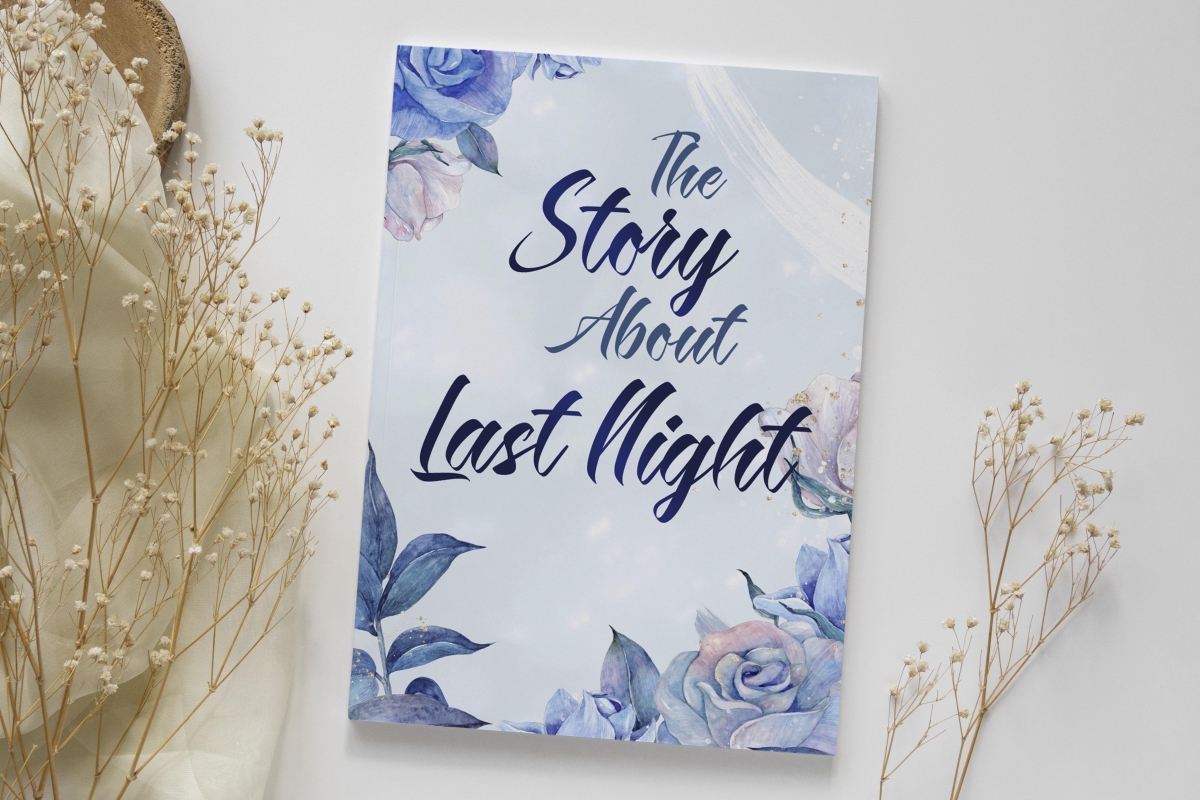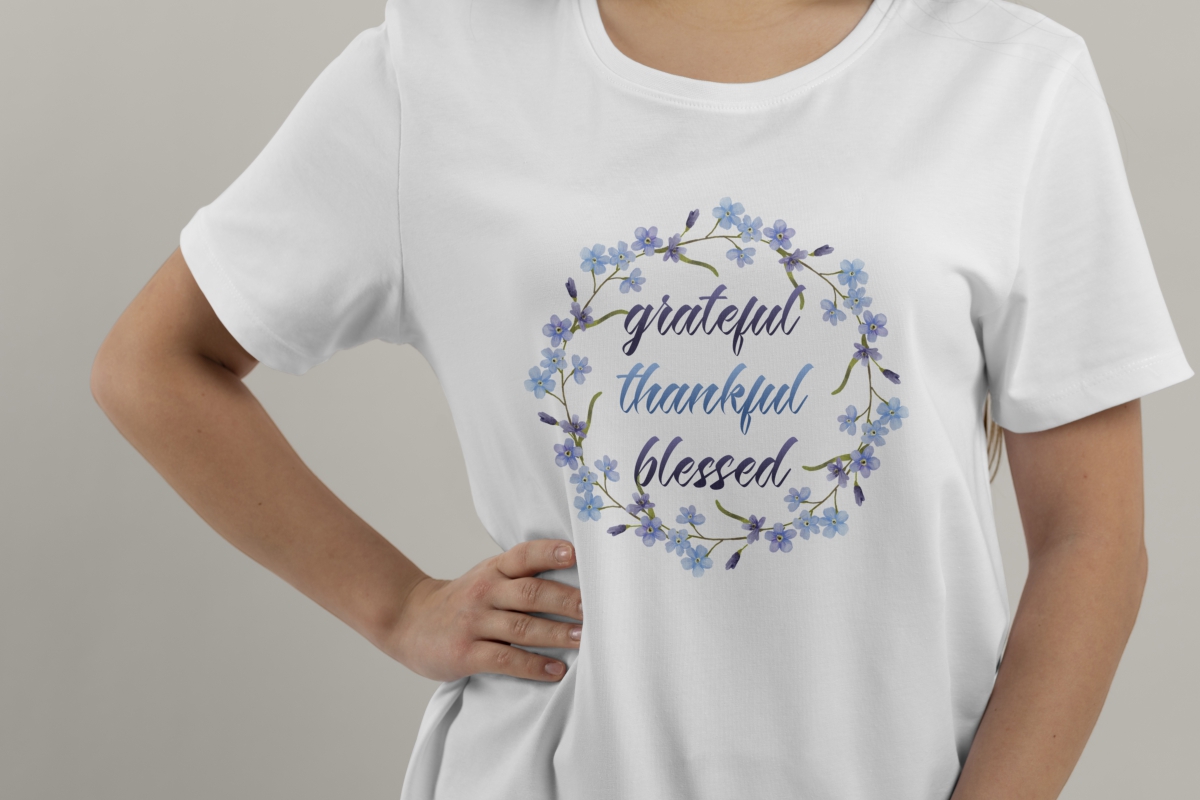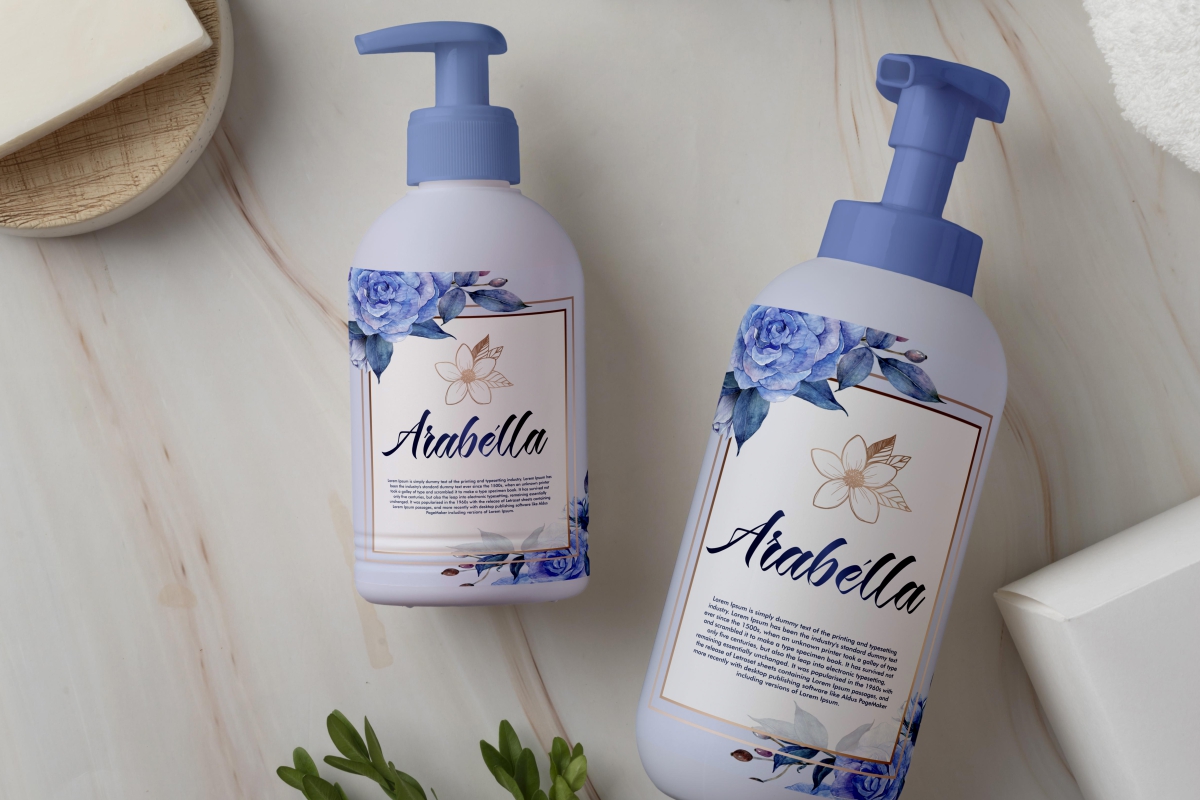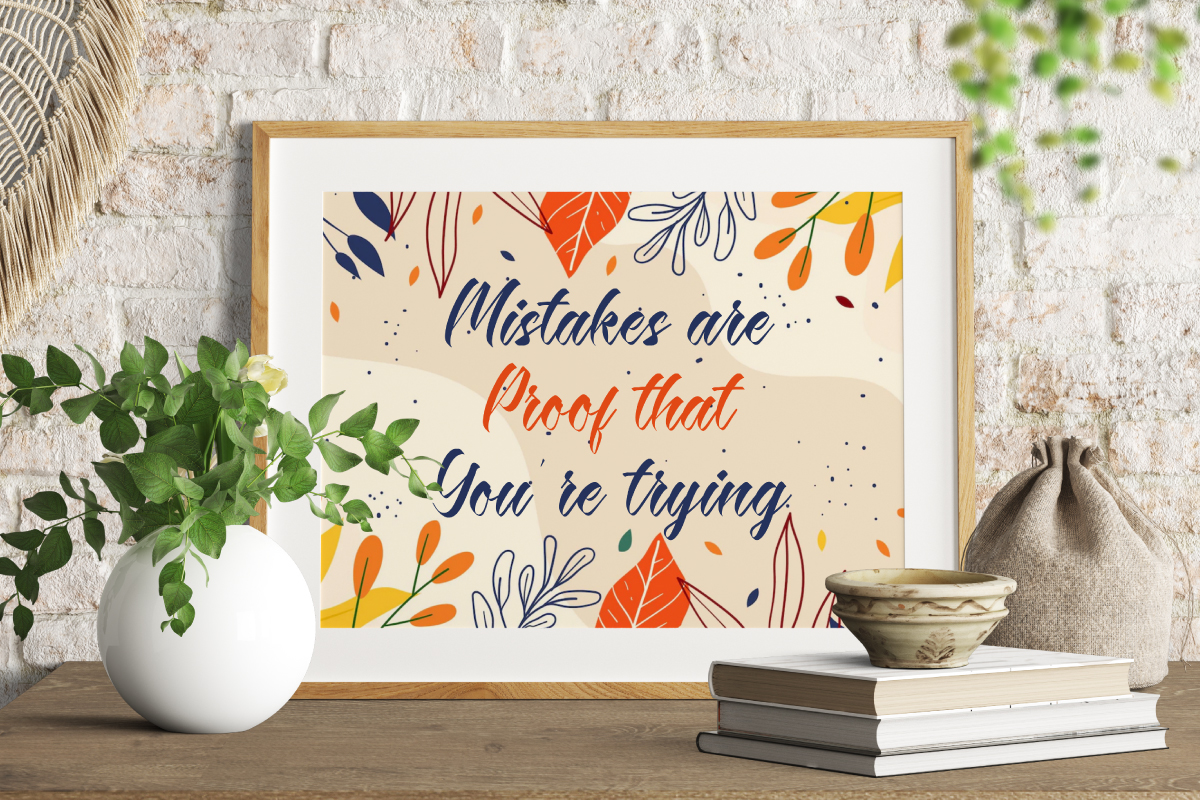
Grand Madame Font
Grand Madame Script Font is a stylish calligraphic script font. This font balances thick and thin lines and adds beauty to your designs. This font has a elegant appearance making it suitable for any industry, such as fashion, cosmetic, hotel and resort, printing, publishing, restaurant, skincare, spa and salon, travel, and more!